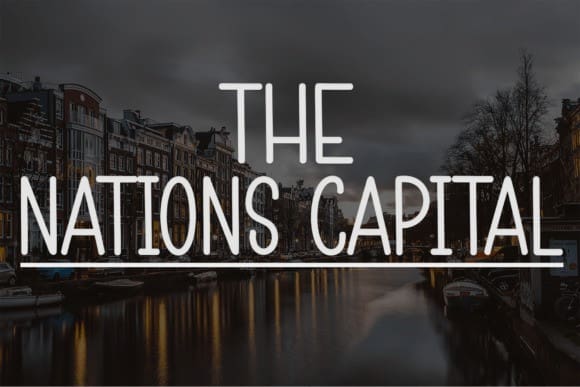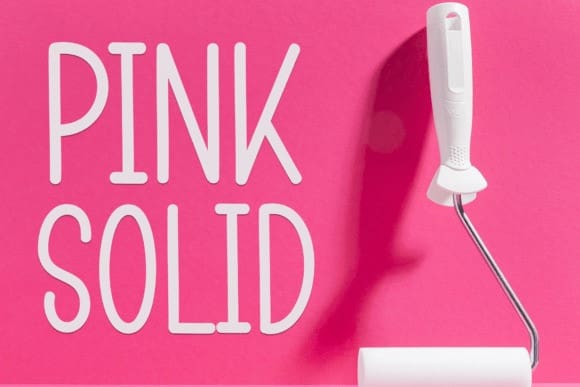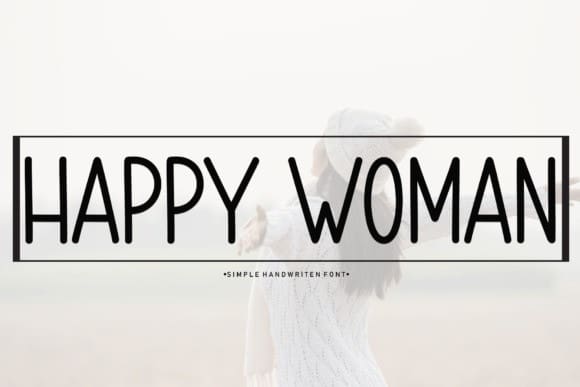
Happy Woman Font
Happy Woman Font is a sweet and friendly handwritten font. Fresh and neat, this font is ideal for writing wedding invitations, cards, or any other design that might need a fun touch!